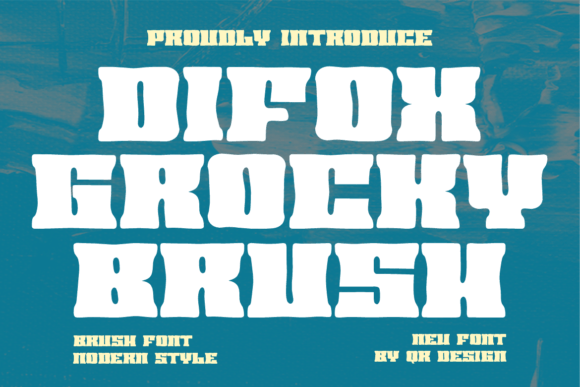
Introducing Difox Grocky Brush Font, a bold and authentic display font that commands attention and leaves a lasting impact. Designed for creative branding projects, Difox Grocky excels in creating eye-catching logos, T-shirt designs, and sports-themed visuals. Its unique character shines through in a multitude of contexts, transforming ordinary designs into extraordinary masterpieces.
Dive into the world of Difox Grocky and unleash your creativity. Embrace its bold strokes and authentic charm to create logos that resonate with strength and confidence. Transform your T-shirts into statement pieces that speak volumes about your personality. Infuse your sports designs with energy and dynamism that captures the essence of competition.
With Difox Grocky, the possibilities are limitless. Its versatility allows it to adapt seamlessly to a wide range of projects, from modern posters to vintage labels. Its bold presence demands attention, ensuring your designs stand out from the crowd. Make a statement with every stroke and leave an indelible mark on your audience.
Don't settle for ordinary fonts that blend into the background. Choose Difox Grocky, the font that captivates, inspires, and ignites imaginations. Its bold strokes and authentic charm will transform your designs into works of art, leaving an unforgettable impression on all who encounter them.